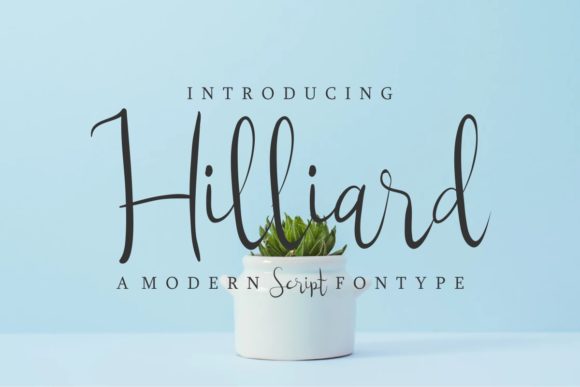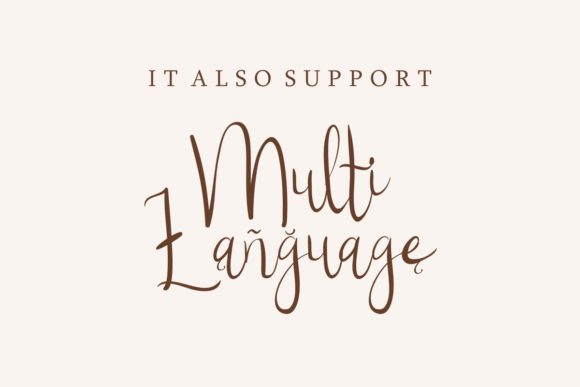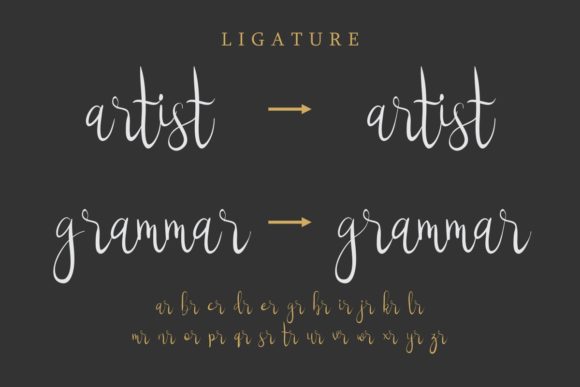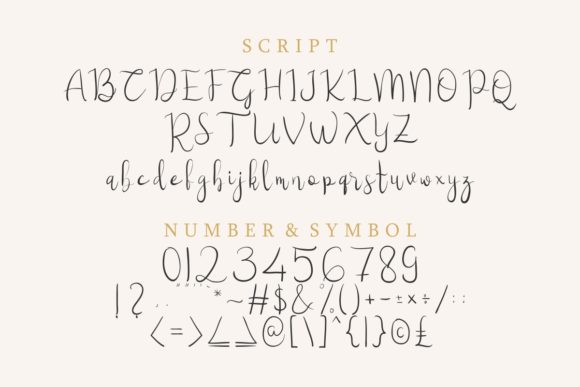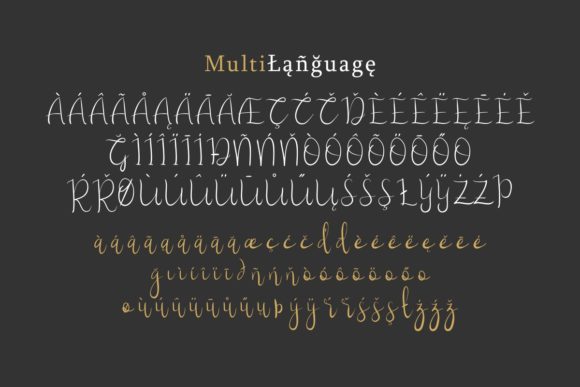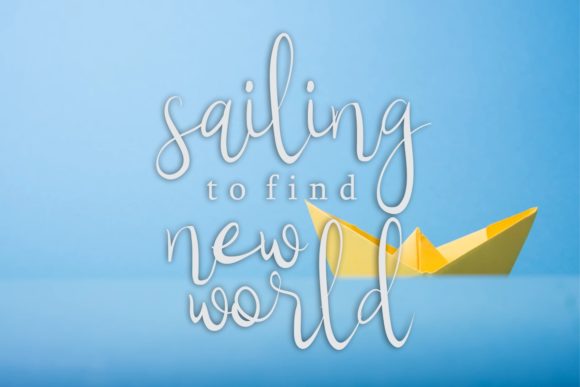
Introduction to Hilliard Font
Do you remember that moment when you stumbled upon the perfect design element that elevated your entire project? For designers, this can be a game-changer. It’s the difference between a good design and a great one. For me, that moment came when I discovered the Hilliard Font – a sweet and simple handwritten font that instantly added an authentic vibe to my creative project.
With its modern look and feel, the Hilliard Font has become a valuable resource for designers seeking a high-quality, free download. Whether you’re working on a personal or commercial project, this font is sure to bring a touch of elegance and sophistication. One of the best things about the Hilliard Font is its versatility – it pairs perfectly with a transparent background, making it ideal for digital designs.
Key Features of Hilliard Font
- Unique Design Style: Hilliard Font features a distinctive, hand-drawn design that adds a personal touch to any creative project.
- High-Quality Graphics: This font offers crisp, high-quality graphics that are perfect for designers seeking a premium design resource.
- Transparent Background: The transparent background of Hilliard Font allows for seamless integration with any design, making it an ideal choice for creative projects.
Honest Review: Hilliard Font
I recently had the chance to work with the Hilliard Font, and I must say it’s been a game-changer for my design projects. As a designer, I’m always on the lookout for high-quality design resources that can elevate my work. The Hilliard Font definitely delivers.
- High-quality design: The Hilliard Font is incredibly detailed and well-crafted, making it perfect for creative projects that require a professional touch.
- Transparent background: This feature is a must-have for any designer, allowing me to easily use the font on transparent backgrounds.
- Limited character set: The Hilliard Font only includes a limited character set, which can be a problem for designers who need to use the font for extended periods.
Overall, I’m impressed with the Hilliard Font. While it has some limitations, its high-quality design and free download make it a valuable addition to any designer’s toolkit.
The Hilliard Font is suitable for a variety of creative projects, including graphic design, digital art, and typography-based designs. Its unique style and high-quality design make it an excellent choice for designers looking for a distinctive font.